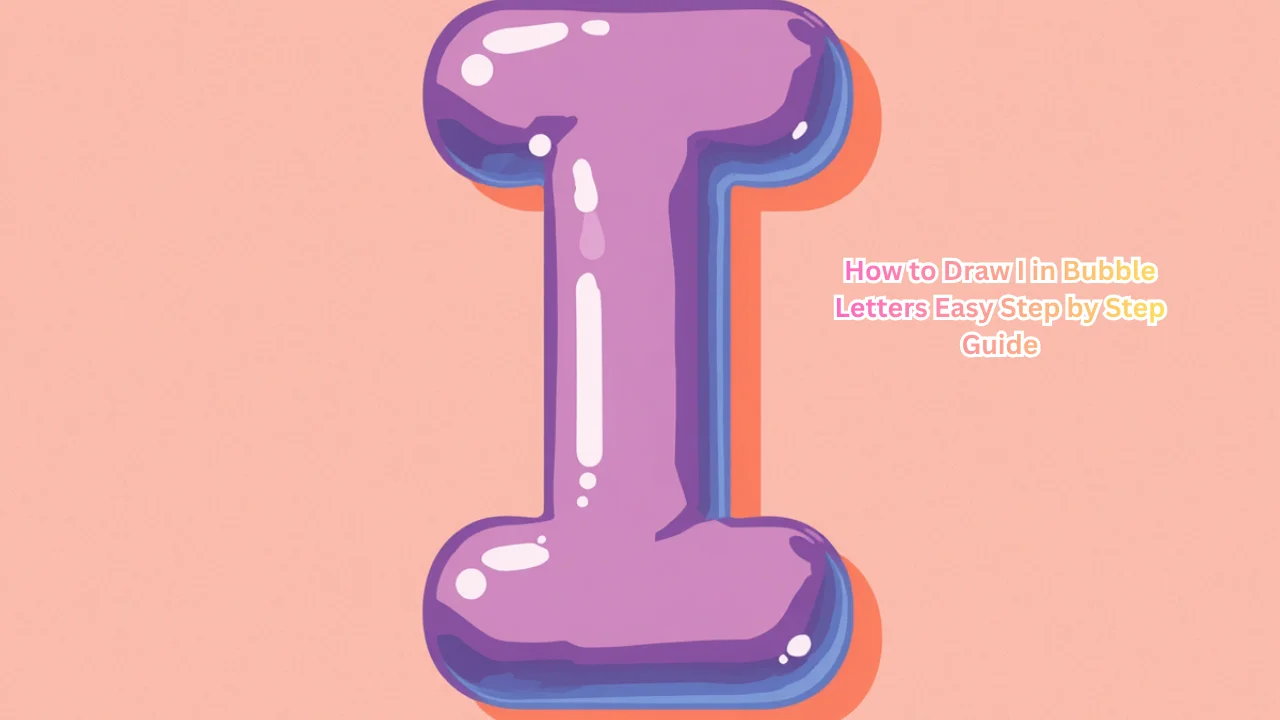
How to Draw I in Bubble Letters Easy Step by Step Guide
Drawing the i in bubble is a fun and creative way to make your writing stand out. Bubble letters are soft, rounded, and visually appealing, giving a playful look to any word. The letter i in bubble letters can be customized with colours, patterns, and decorations to reflect your personality.
Learning to draw the i in letters is simple, even for beginners. With a pencil, eraser, and some practice, anyone can create bold and attractive letters. This style is popular for posters, school projects, and personal artwork.
Why I in Bubble Letters Are Popular
Bubble letters have a unique charm. They are easy to read, bold, and visually striking. A simple i in bubble letter can change the look of a word completely. People enjoy them because they allow creativity and self-expression.
Artists of all ages use bubble letters in notebooks, graffiti art, and DIY crafts. The i in bubble letter is often the first letter beginners learn because it is simple and adaptable.
Basic Steps to Draw
Start with a simple vertical line for the i in bubble letter. Then, draw thick, rounded outlines around the line to create the bubble effect. Finally, erase the inner pencil lines to clean up your design.
You can also add the dot above the i in bubble letter as a small circle or heart for extra style. Colouring or shading the letter gives it depth and a polished look.
Different Styles
There are multiple styles for the i in bubble letter. You can make it tall, short, wide, or narrow depending on your preference. Some artists add extra curves or 3D effects to make it pop.
Here is a quick table to understand styles:
| Style | Description | Ideal Use |
|---|---|---|
| Classic Bubble I | Simple rounded shape | School projects, notes |
| 3D Bubble I | Adds depth and shadow | Posters, signs |
| Patterned I | Inside decorations like stripes | Creative notebooks, crafts |
| Heart Dot I | Dot above the i is heart-shaped | Personalized cards |
| Graffiti I | Bold urban style | Wall art or modern designs |
Adding Color and Decorations
Color makes the i in bubble letter visually appealing. Bright colors or gradients can enhance the letter. Patterns like polka dots, stripes, or stars make it unique.
Using markers, colored pencils, or gel pens can create different effects. Highlighting the edges of the i in bubble letter gives a 3D appearance, making it stand out more.
School Projects
Students often use the i in bubble letter in headings and titles. It makes assignments, posters, and charts look creative. Teachers notice effort and neatness in bubble lettering.
Using a i in bubble letter can also improve presentation skills. A well-decorated letter attracts attention and makes the work visually appealing.
Crafts and DIY Projects
The i in bubble letter is not only for paper. You can use it in stickers, mugs, t-shirts, and notebooks. Many crafters enjoy using bubble letters for personalized gifts and art projects.
Adding small decorations, colors, or patterns turns the i in bubble letters into a unique design element. It makes ordinary projects look special and creative.
Common Mistakes to Avoid
Beginners often make letters uneven or inconsistent in size. This can make the i in bubble letter look unbalanced. Always start lightly with a pencil before outlining.
Another mistake is ignoring the dot above the i in bubble letter. It is an important part of the design and can be decorated creatively.
Tips to Master
Practice regularly to improve smooth curves and consistent thickness. Experiment with different styles, such as 3D, tall, short, or patterned versions.
Use reference sheets or tutorials online to learn variations. Once you master the i in bubble letter, you can combine it with other letters to create full words or phrases creatively.
Fun Activities
Bubble letters can be part of creative games, challenges, or journaling. You can design your name or favorite words using the i in bubble letter. Combining them with other letters creates attractive visual compositions.
Adding small designs like stars, hearts, or emojis to the i in bubble letter allows endless creative possibilities.
Popular Styles
| Style | Features | Best For |
|---|---|---|
| Rounded I | Classic soft bubble shape | School notebooks, posters |
| 3D I | Shadowed effect for depth | Posters and artwork |
| Patterned I | Stripes, dots, or geometric designs | Creative DIY projects |
| Heart Dot I | Heart-shaped dot above i | Personalized gifts or cards |
| Graffiti I | Bold urban style | Modern wall art or signs |
Final Thoughts
Mastering the i in bubble letters is simple and fun. With a little practice, anyone can make their text bold, playful, and creative. Letter are versatile and perfect for personal projects, school assignments, or crafts.
Each i in bubble letter can be customized to fit your style, colours, or patterns. Experimenting with different designs allows you to create unique and eye-catching artwork. Start practicing today and see how a simple letter can transform your writing into art.